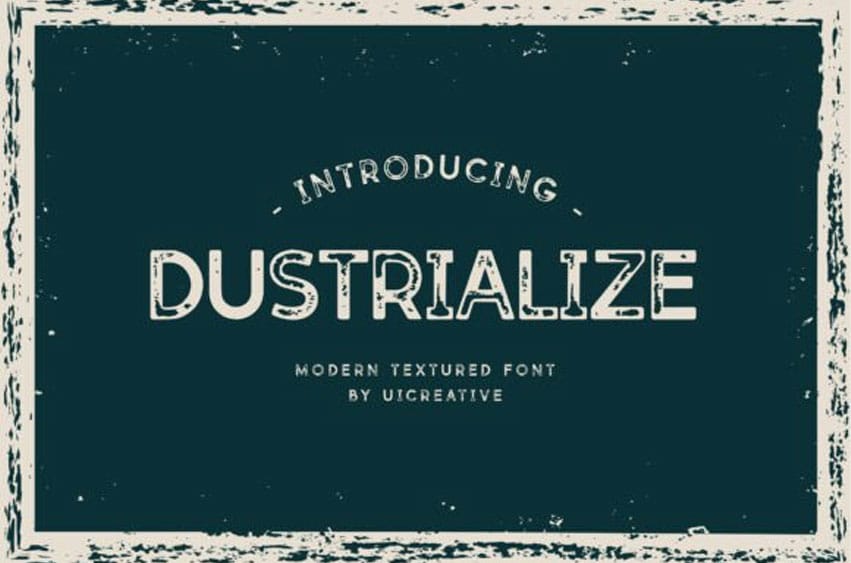
Dustrialize Font is a bold and assertive serif font.
No matter the topic, this font will be an incredible asset to your fonts’ library, as it has the potential to elevate any creation.